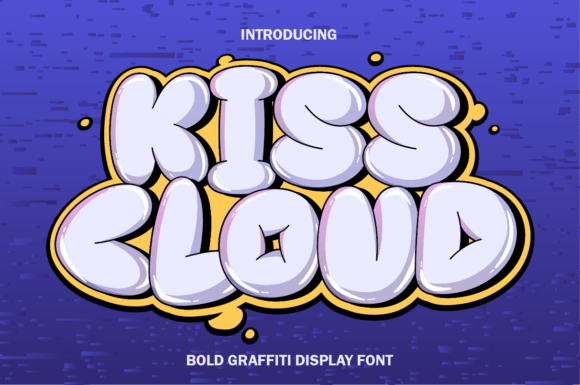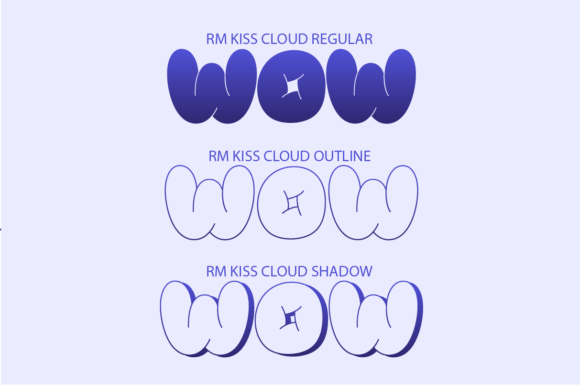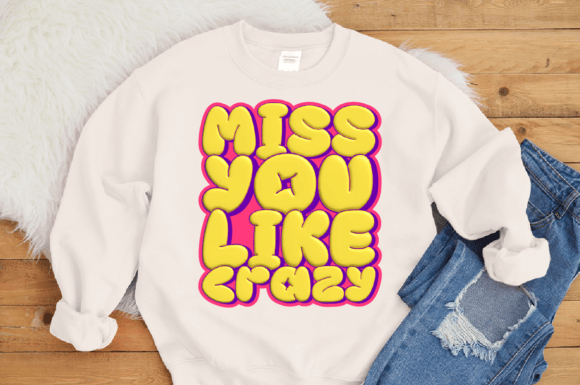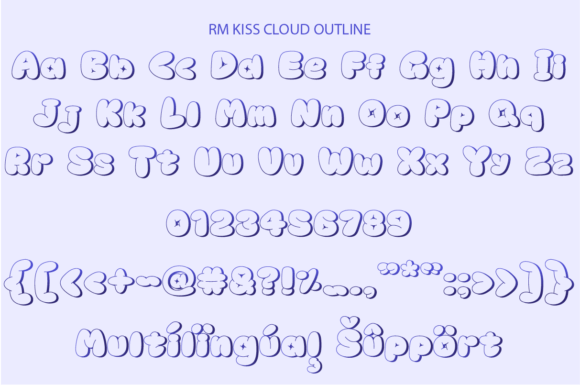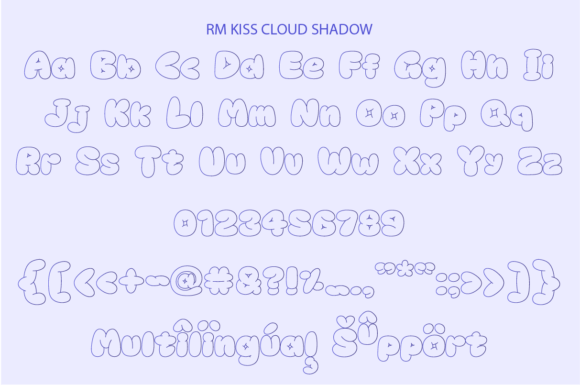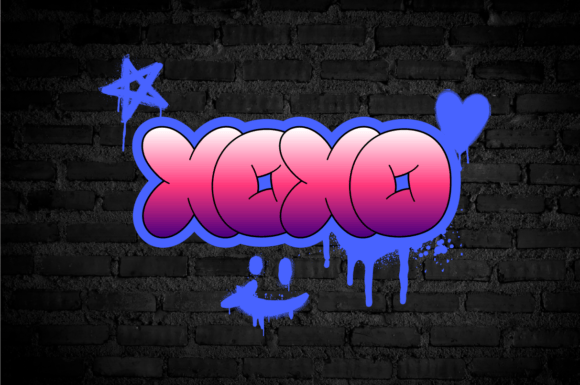
Kiss Cloud Font
Kiss Cloud Graffiti is fun display font in graffiti style. Perfect for create street shirt. Easy and harmony to mix and match with street element. Come with regular / outline / shadow easy to use.